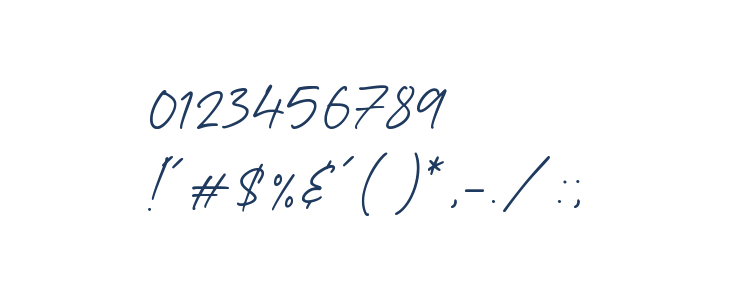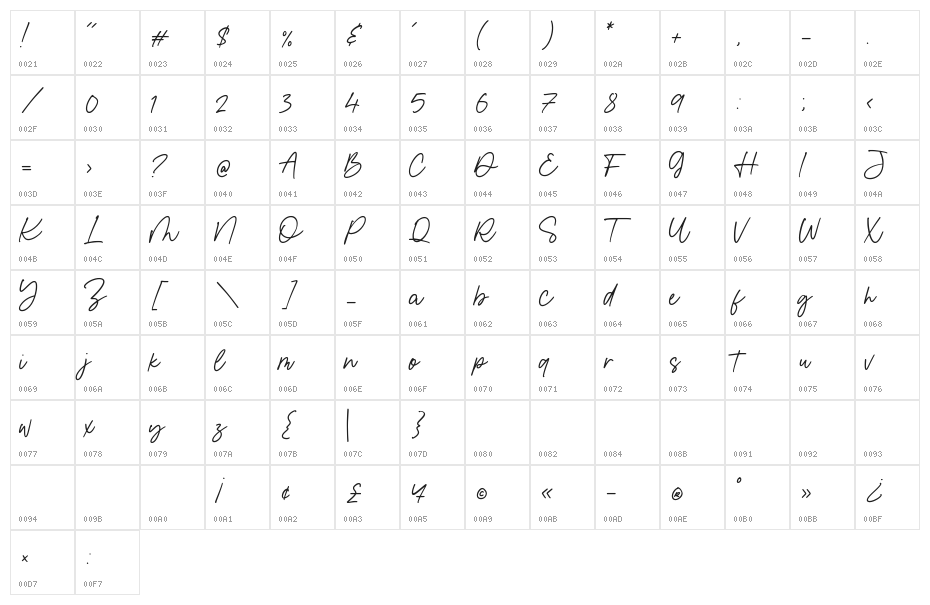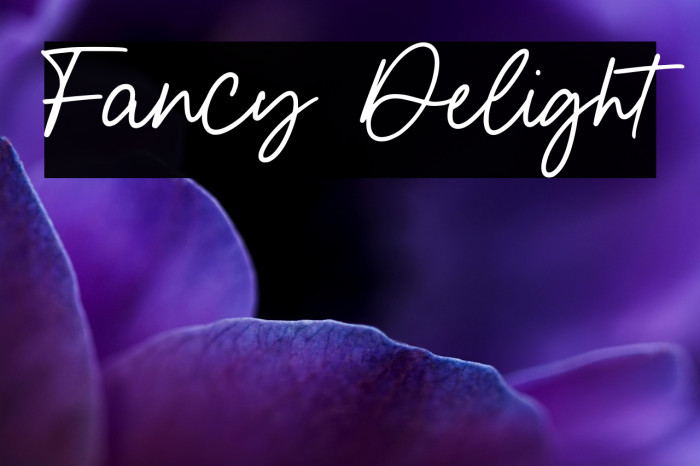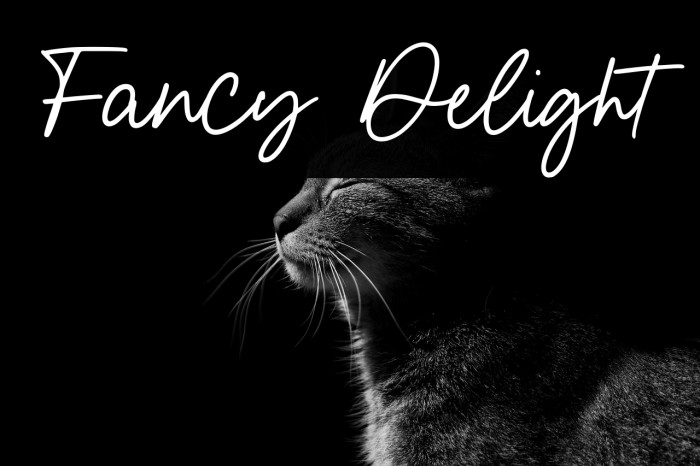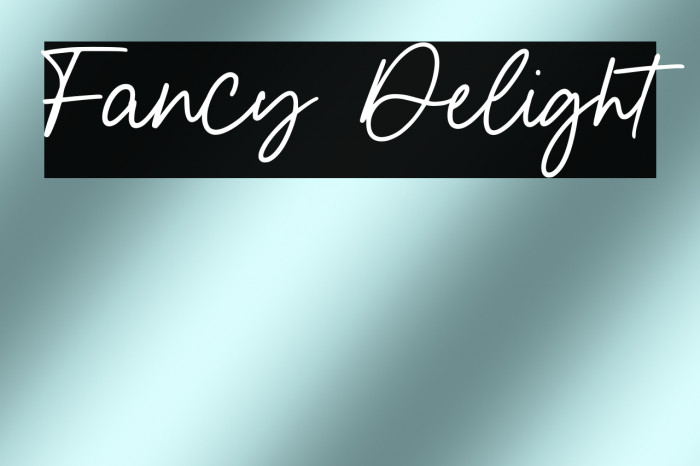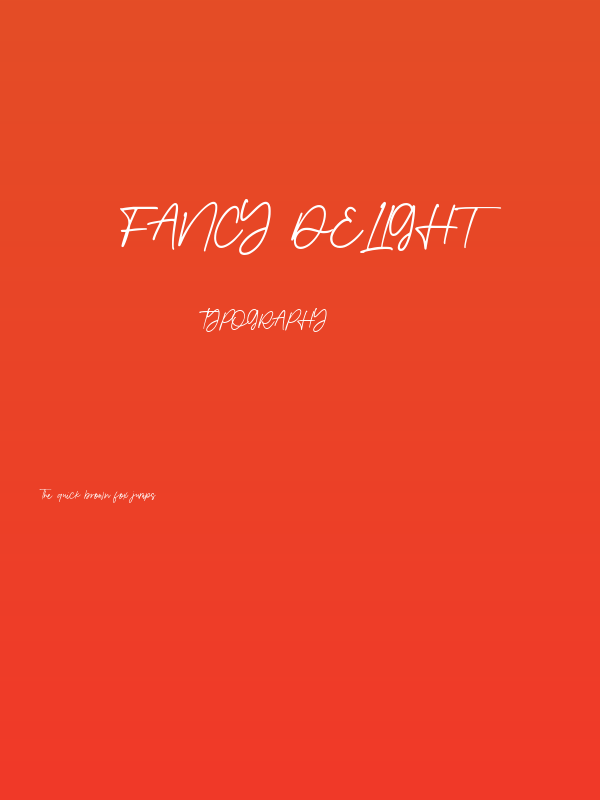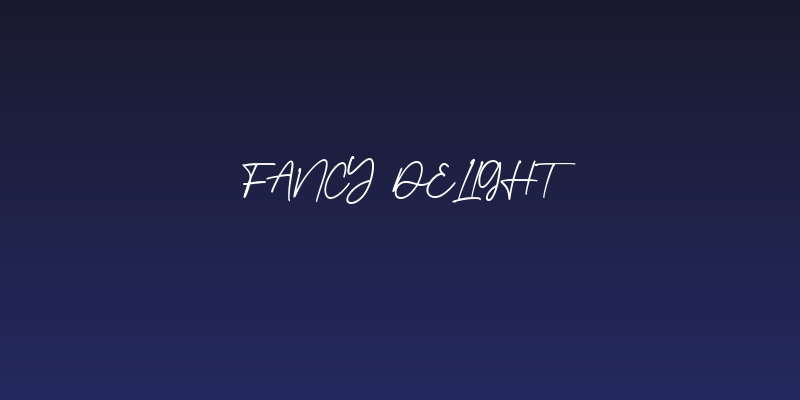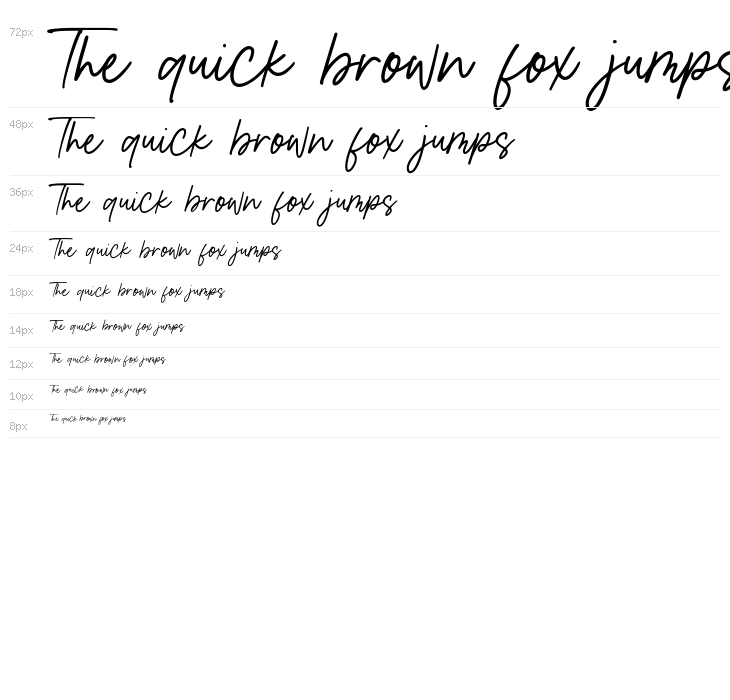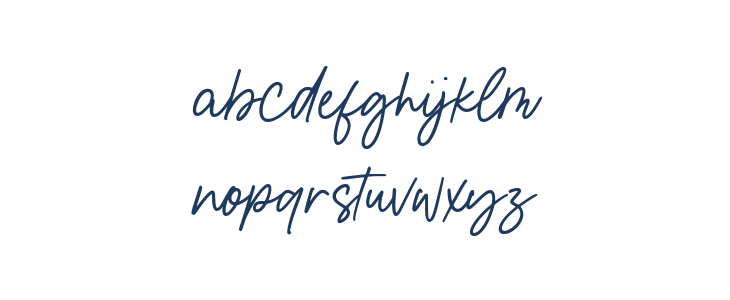
Fancy Delight Font
Fancy Delight Description
This font exudes a lively and dynamic character with its flowing, cursive style. The letters are elegantly connected, giving a sense of continuity and fluidity. The strokes are smooth and slightly varied in thickness, adding a touch of sophistication and grace. The uppercase letters are bold and expressive, while the lowercase letters maintain a consistent rhythm and balance. The numerals are clear and stylish, complementing the overall aesthetic. Special characters are thoughtfully designed, enhancing the font's versatility. This font is perfect for projects that require a personal and artistic touch.
Overall StyleDecorative
Use CaseLogos, Invitations, Artistic projects
Proposed ProjectsIdeal for wedding invitations, greeting cards, personal branding, and artistic projects.